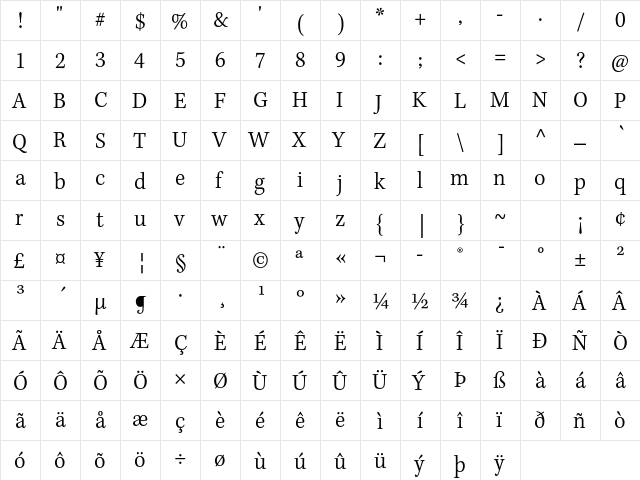
Kepler Std Light Semicondensed Caption Font Preview
| Designer | Robert Slimbach |
Design Context for Kepler Std Typeface
Kepler Std takes a measured approach to typography — its balanced proportions and neutral character make it a reliable workhorse for both digital and print work. The delicate stroke weight brings airiness and refinement to layouts. Its narrow stance lets it pack a punch even in space-constrained designs.
Pro Tip: Pair Kepler Std with a font of contrasting weight or personality to build a more expressive typographic hierarchy.